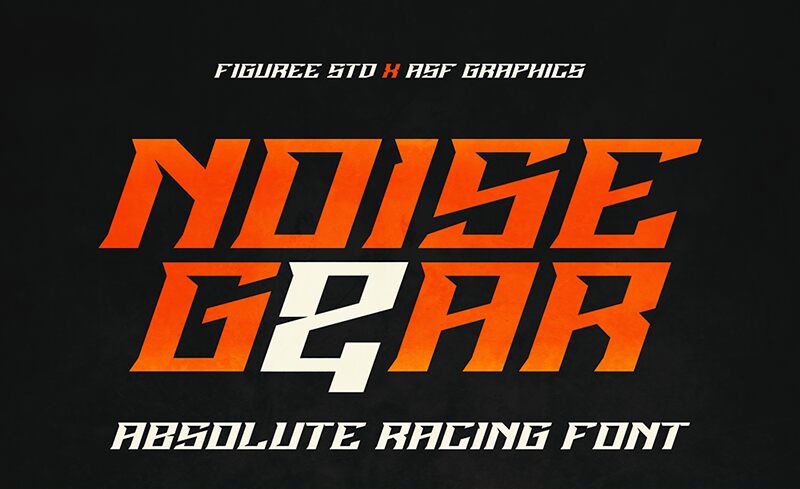
Noise Gear, a captivating display font crafted by Figuree Studio, exudes a distinct techno-inspired aesthetic. Its angular, bold letterforms and dynamic, kinetic energy immediately command attention, evoking a sense of futuristic and high-tech sensibilities. The font's striking visual impact is further amplified by its dramatic serifs and the seamless integration of negative space, creating a harmonious blend of sharp edges and fluid movement.
Noise Gear's versatility shines through its ability to seamlessly integrate into a variety of design contexts, from bold branding and packaging to eye-catching event posters and digital interfaces. Its powerful, attention-grabbing presence makes it an excellent choice for projects that require a bold, technological, or industrial-inspired aesthetic, allowing designers to craft impactful, memorable visuals that capture the audience's imagination.